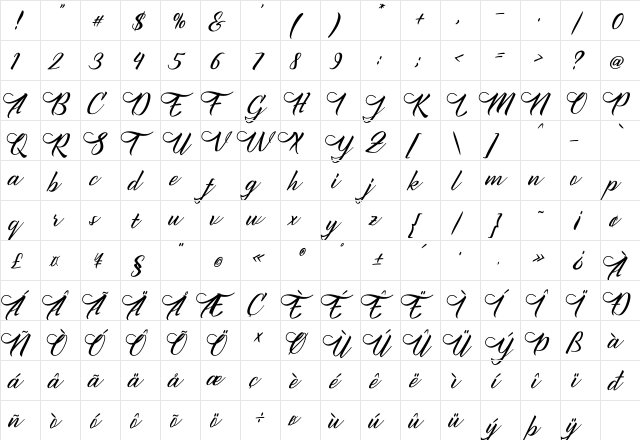
SanyCimahen Regular
Design Context for SanyCimahen Typeface
SanyCimahen is a composed and adaptable typeface that performs quietly and consistently across a wide range of design contexts.